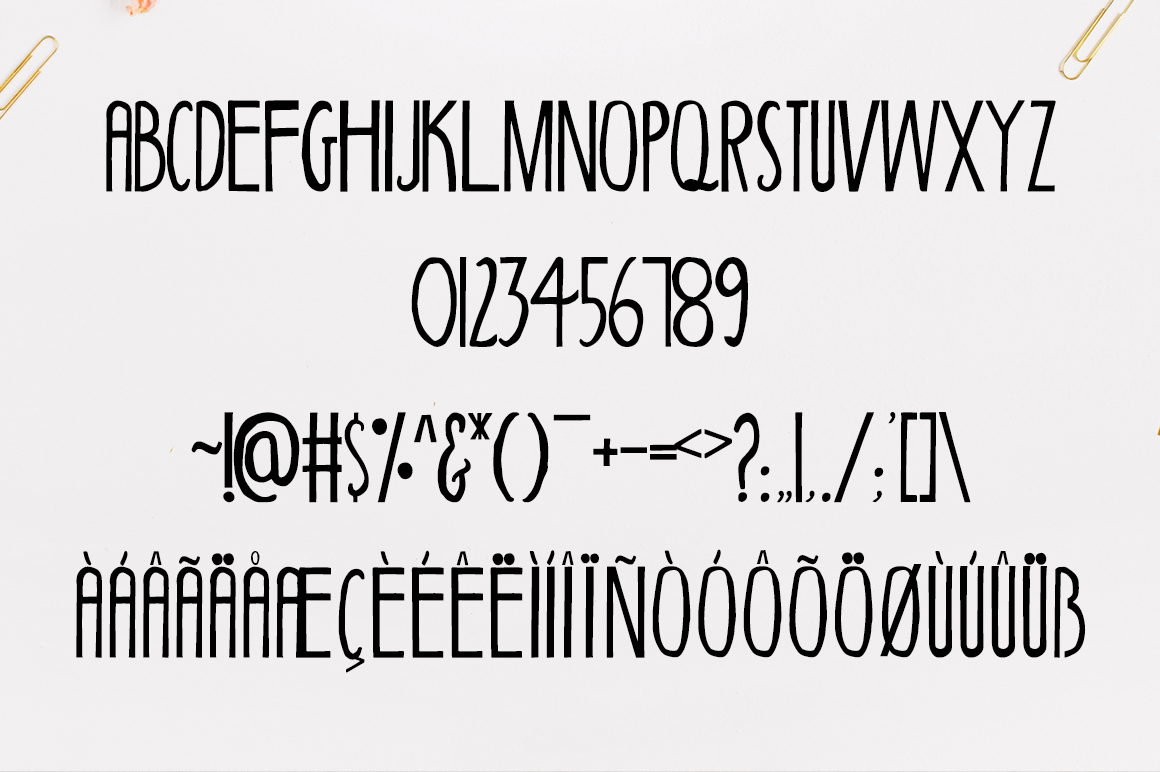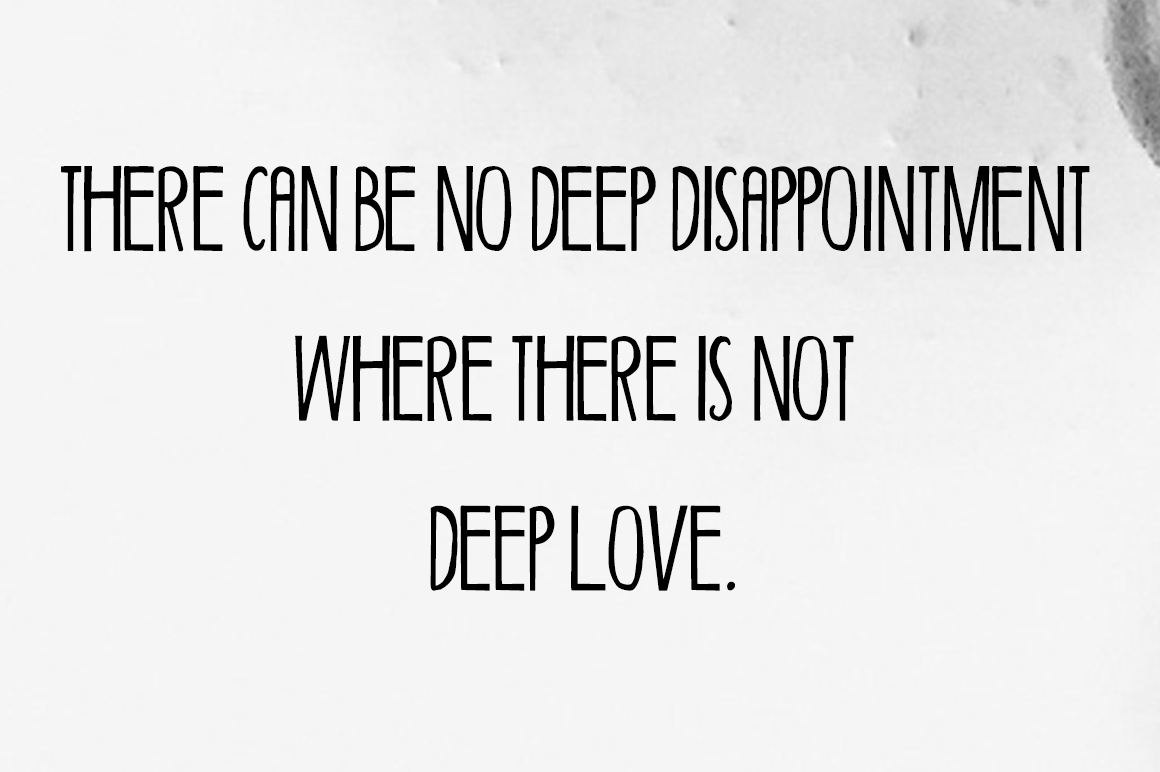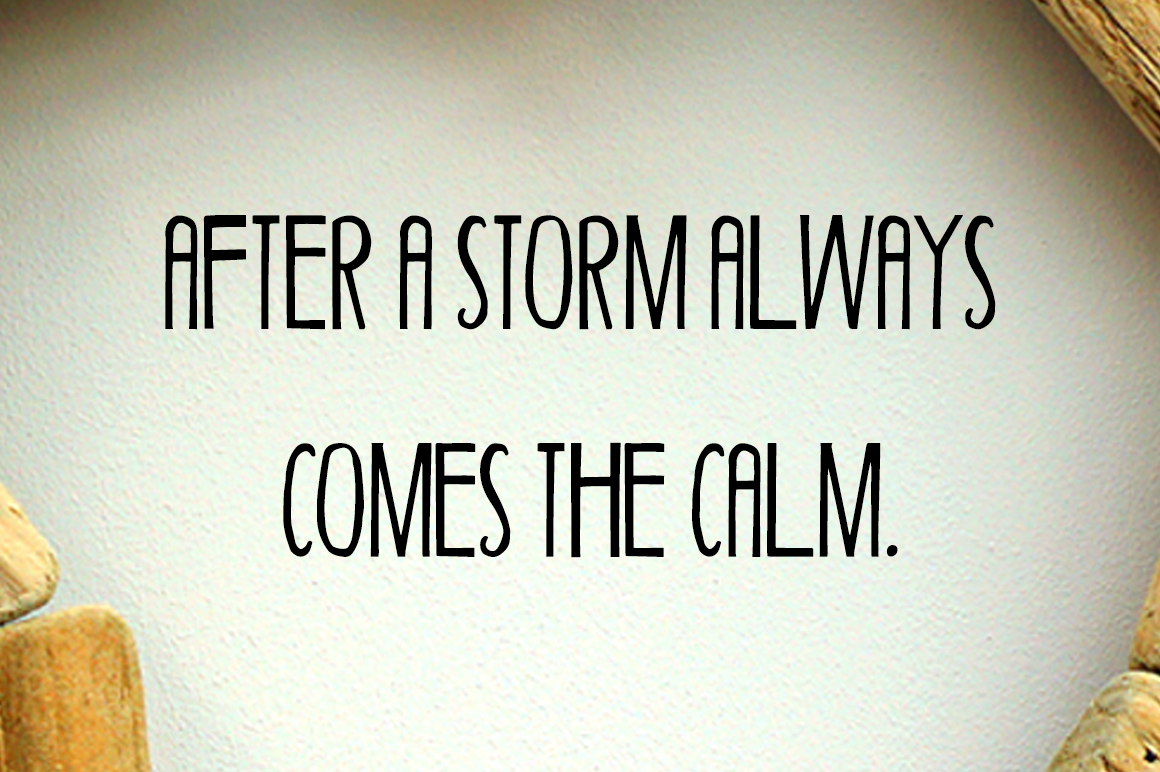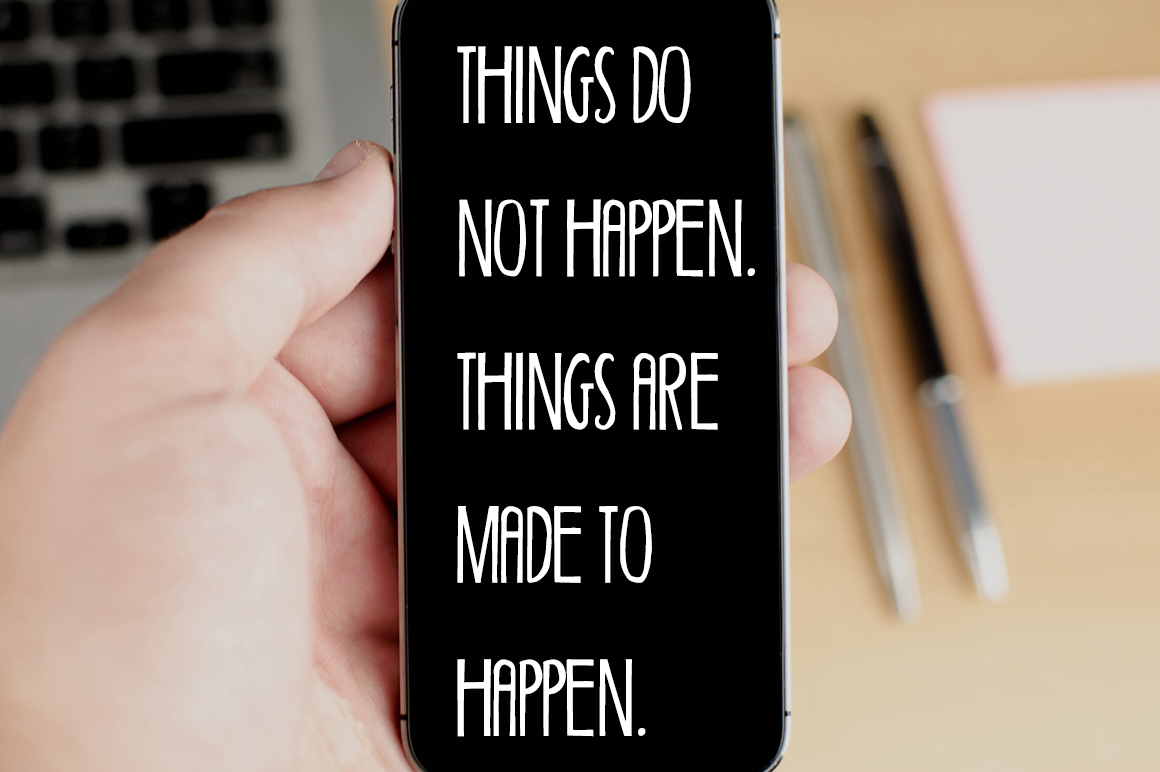
Unleashing Your Creativity with the Barden Font
Have you ever been stuck in a creative rut, staring at a blank canvas, wondering how to bring your vision to life? It’s a feeling we’ve all experienced at some point, but what if you had the perfect tool to break through that barrier and unleash your inner designer?
Enter the Barden Font, a beautifully crafted display font that’s as much a work of art as it is a design tool. This stunning font is perfect for creating timeless, show-stopping designs that will leave a lasting impression. Whether you’re a seasoned pro or just starting out, the Barden Font is the ultimate multi-purpose tool for designers looking to elevate their work.
Barden Font Key Features
- Font Family: Barden is a sans-serif font family.
- Character Set: Barden Font supports a wide range of languages, including Latin, Cyrillic, and Greek alphabets.
- Unique Characteristics: Barden Font features a clean and modern design, with a distinctive x-height and a range of weights to suit various design needs.
Barden Font Review
Overall, I think the Barden font has some nice qualities, but it also has some limitations. Let’s break it down.
- Unique Style: The Barden font has a distinct, elegant style that can add a touch of sophistication to any design.
- Good Legibility: The font is well-designed for body text, making it easy to read, even at smaller font sizes.
- Large Character Set: The font includes a wide range of characters, including international characters and symbols.
- Limited Weight Options: The font only comes in a few weights, which may limit its versatility for certain design projects.
- Not Ideal for Headlines: While the font is great for body text, it may not be the best choice for headlines or titles, as it can be a bit too subtle.
- Some Characters Are Ugly: Unfortunately, some of the characters in the font, such as the ampersand (&) and the copyright symbol (€), are not well-designed.
Overall, the Barden font is a solid choice for body text, but it may not be the best fit for every design project. With a little creativity and experimentation, you can make it work for your needs.
Getting the Most Out of Barden Font
To get the most out of Barden Font, try the following tips:
- Use Barden Font in combination with other fonts to create a unique look.
- Take advantage of the font’s bold and italic styles to add emphasis.
Barden Font is ideal for:
- Designing creative and modern branding materials.
- Creating eye-catching headlines and titles.
- Adding a touch of elegance to formal documents.
Alternatives to Barden Font for Designers
Lato Font is a sans-serif typeface designed by Łukasz Dziedzic. It is a versatile font suitable for various applications, including body text, headings, and titles. Lato is particularly useful for modern designs and can be used in both print and digital media.
Compared to Barden Font, Lato is more versatile and has a wider range of font weights, making it a better option for designers who need to create a consistent look across different elements of a design.
Montserrat Font is a sans-serif typeface designed by Julieta Ulanovsky. It is a geometric font inspired by the urban landscape of Montserrat, a mountain range in Argentina. Montserrat is ideal for headings, titles, and other display text, and it works well in digital media.
Monterssant is more condensed than Barden Font, making it a better option for designers who need to create a sense of urgency or emphasize certain elements of a design.
Merriweather Font is a serif typeface designed by Eben Sorkin. It is a classic font with a traditional feel, making it suitable for body text, headings, and titles. Merriweather is particularly useful for print designs, such as books, magazines, and newspapers.
What font sizes and styles are included in the Barden Font?
The Barden Font includes a range of font sizes and styles, including regular, bold, italic, and bold italic. This allows designers to create a variety of visual effects and emphasize text as needed.